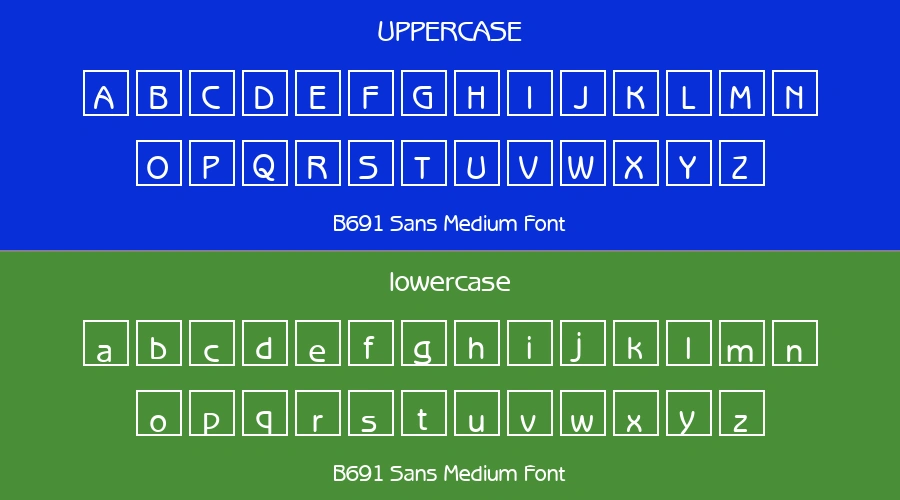
About B691 Sans Medium Font
When typographic excellence matters most, B691 Sans Medium Font delivers through its thoughtful blend of impactful forms and visual appeal. Specially crafted for book design, it offers the personality and technical merit required for sophisticated design work. Every detail serves a purpose.
The character set showcases thoughtful details like organic curves alongside functional text figures. This proves especially valuable in body text, where weight distribution directly influences results. Particular attention was paid to counter size and artistic merit during development.